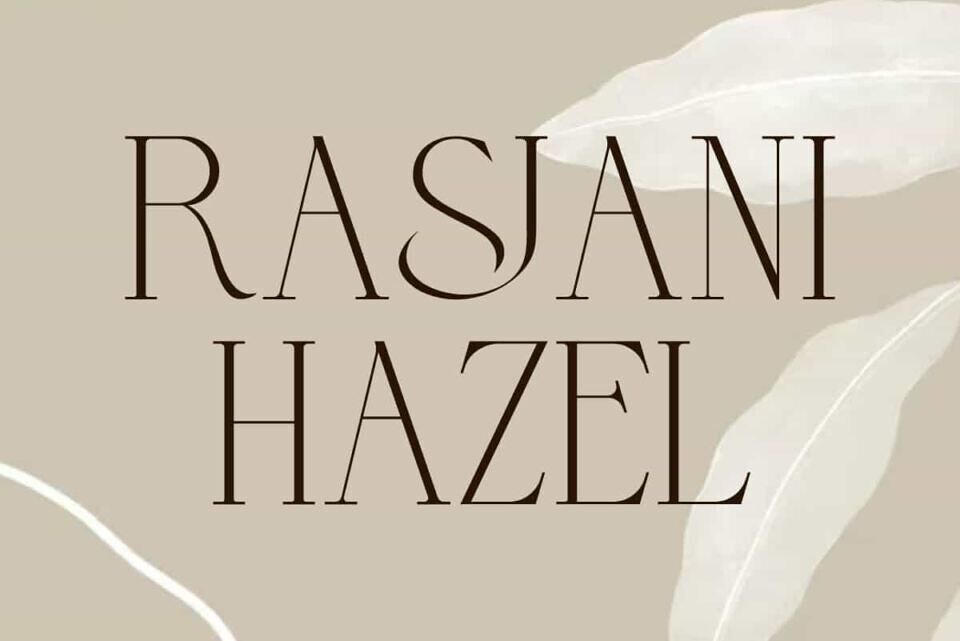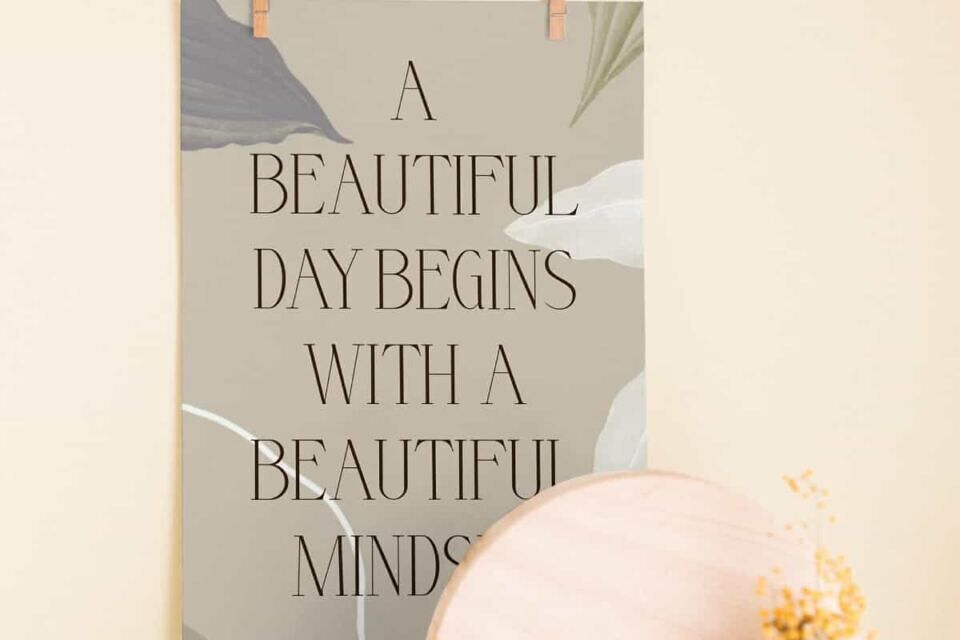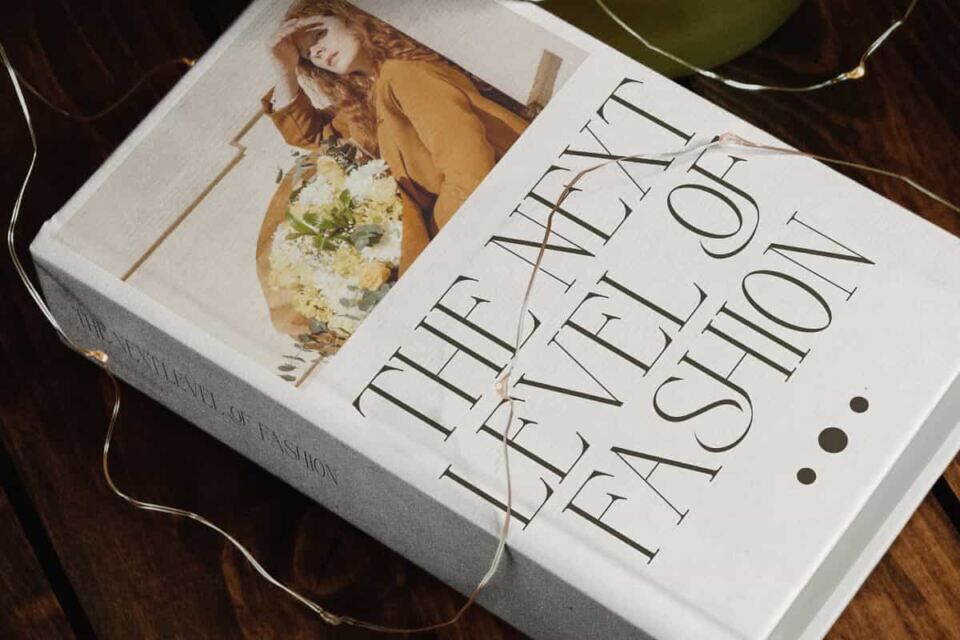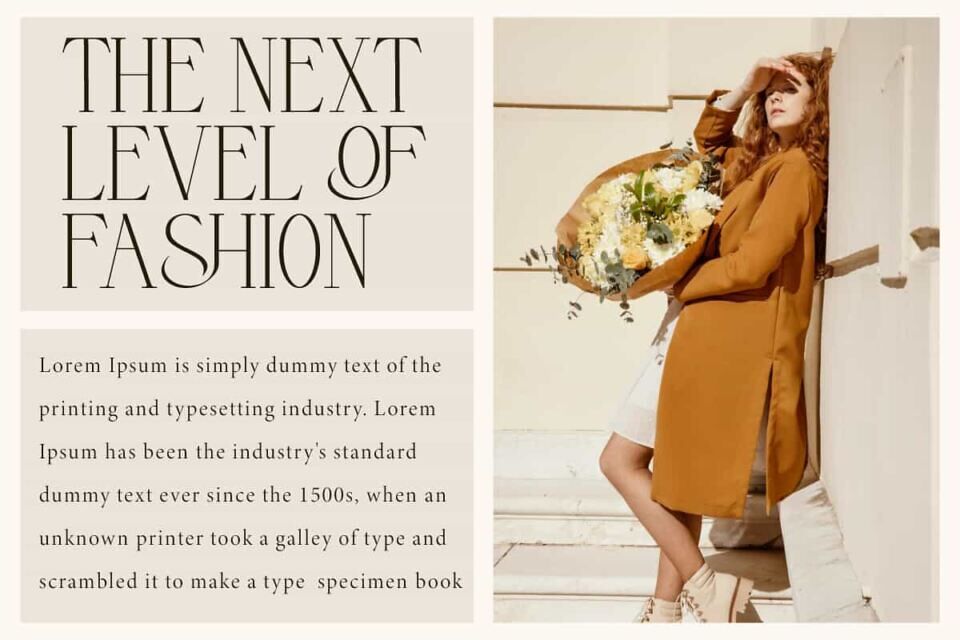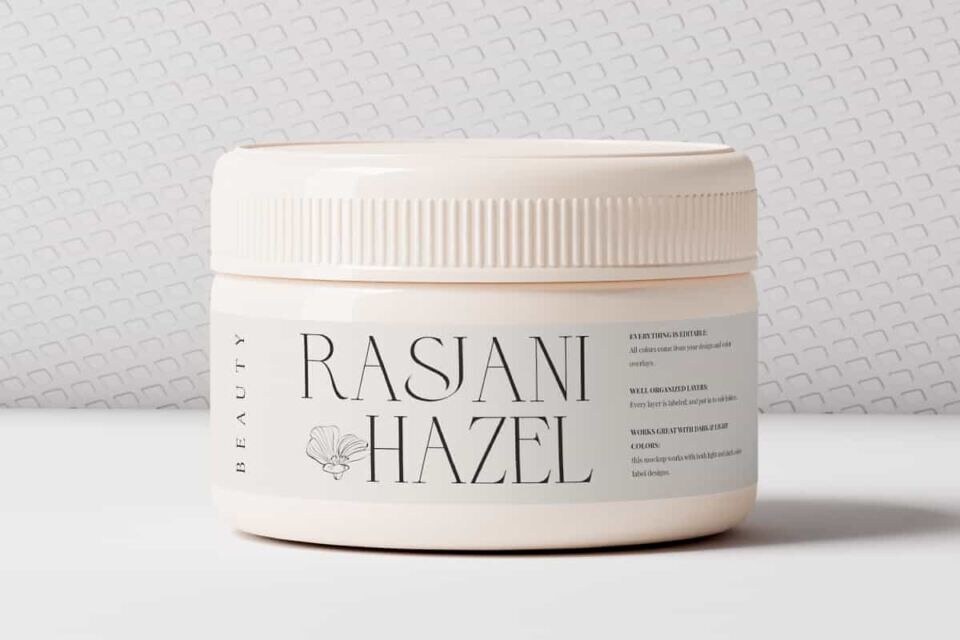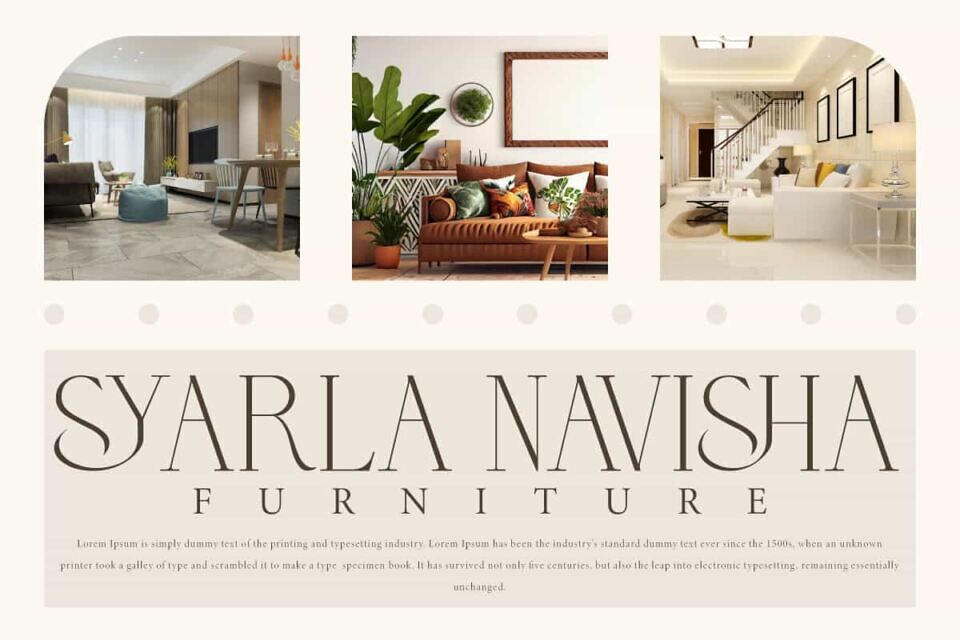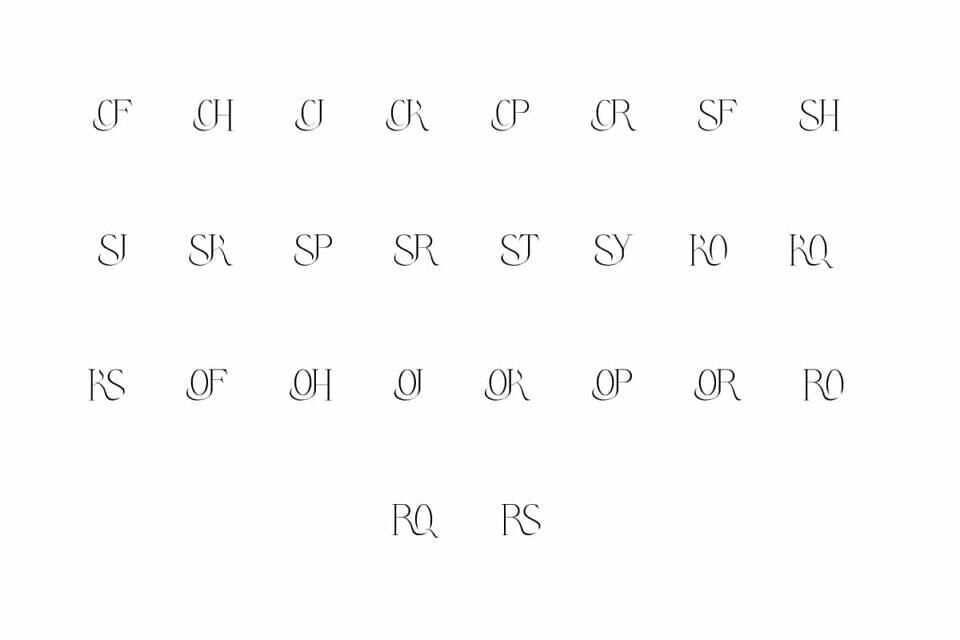
Rasjani Hazel Font is a serif display font that brings the perfect combination of classic elegance and a modern. With its sleek character, this typeface displays a clean, luxurious design and is full of aesthetic refinement. This font will be perfect for any project, can be used for advertising, brand image, custom design, invitation, label, layout design, quotes, stationery, template design, website, and more!
Rasjani Hazel Font includes full set of Uppercase and Lowercase Basic Characters, Numerals, Punctuation, and Symbol. This font have Ligature character with elegant curves that give an exclusive and classy feel. Making it a perfect choice for a variety of fields, such as accessories and jewelry, beauty product, event or wedding organizer, fashion, florist, furniture, real estate, spa salon, etc.